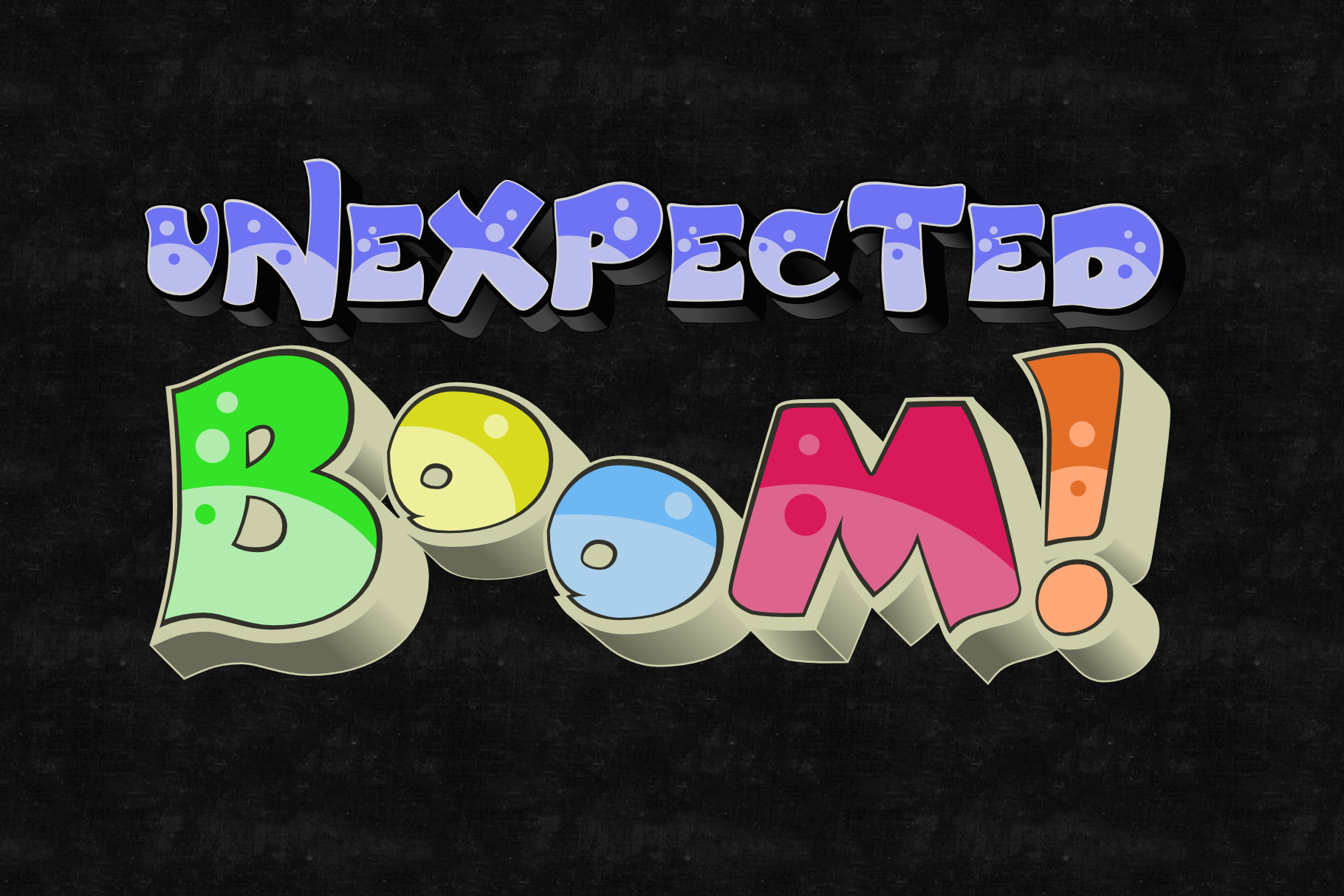
color font BigPartyO3
Decorative, color fonts : candy, candyInv, lime, orange, plum and cherry in OpenTypeSVG .TTF and .WOFF format with:
- diacritic glyphs
- contextual alternates